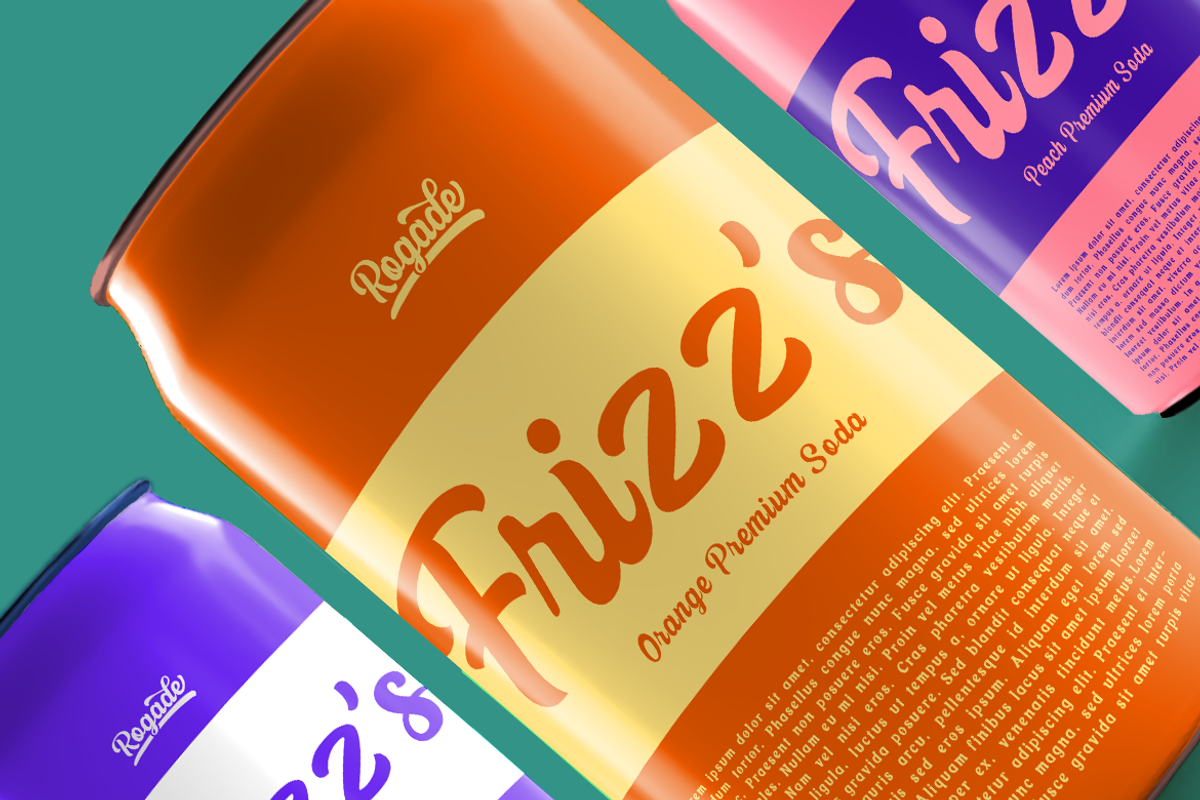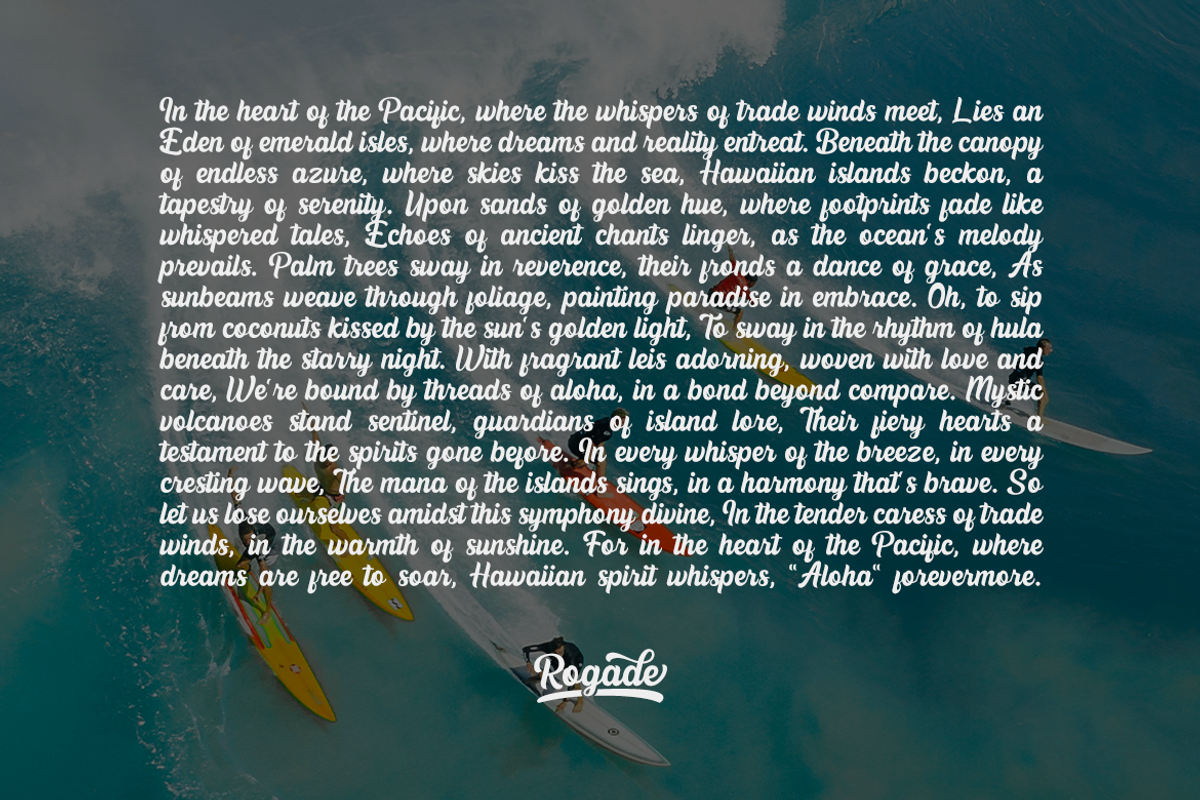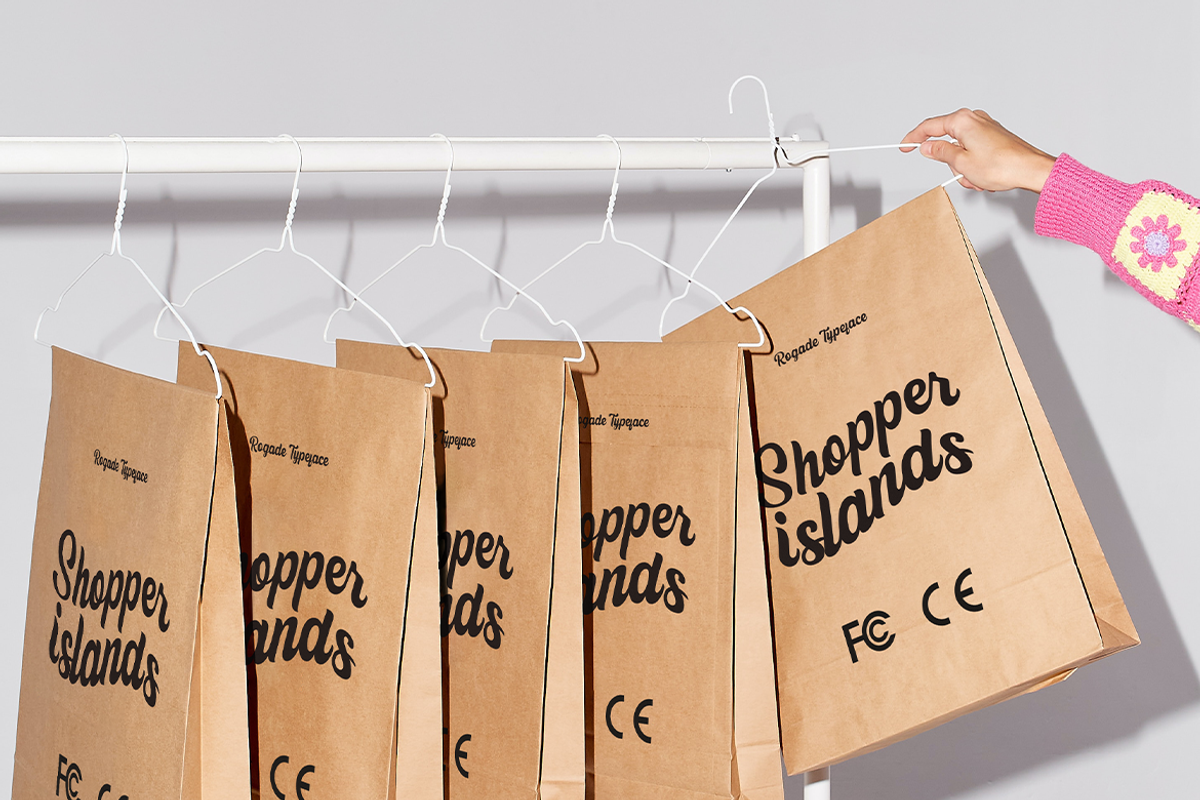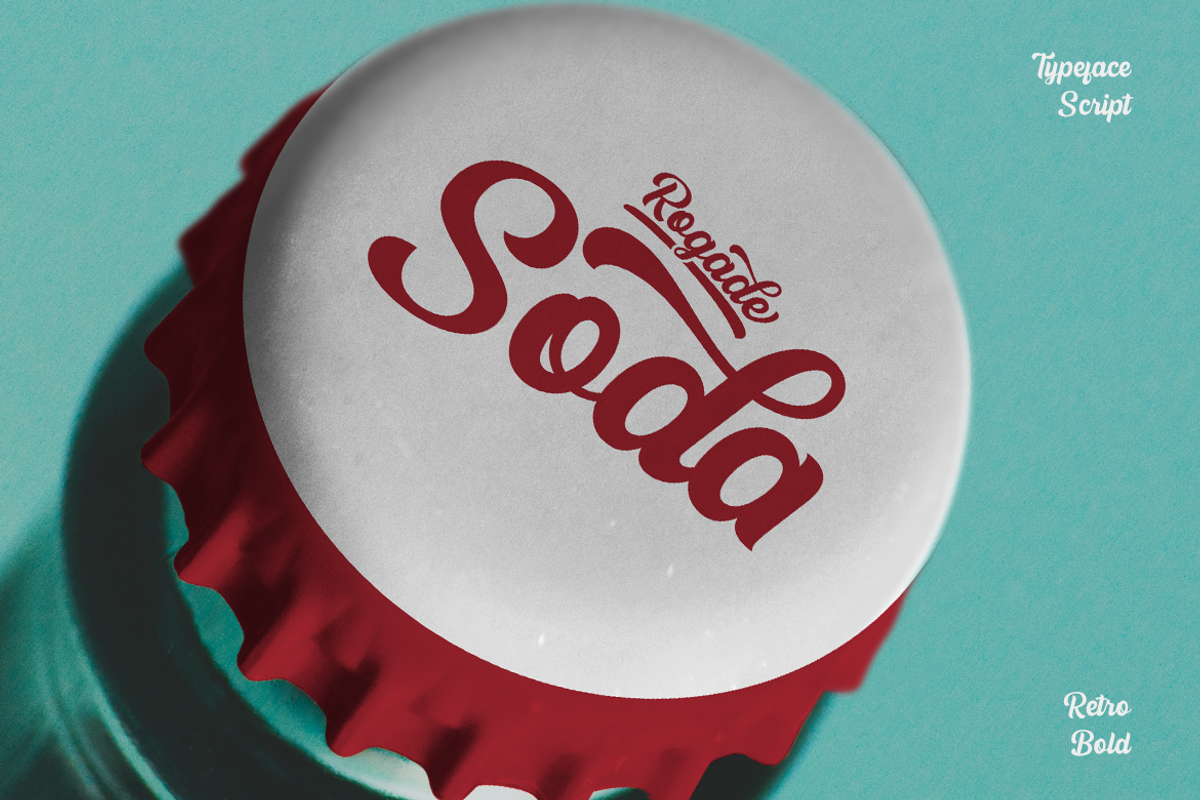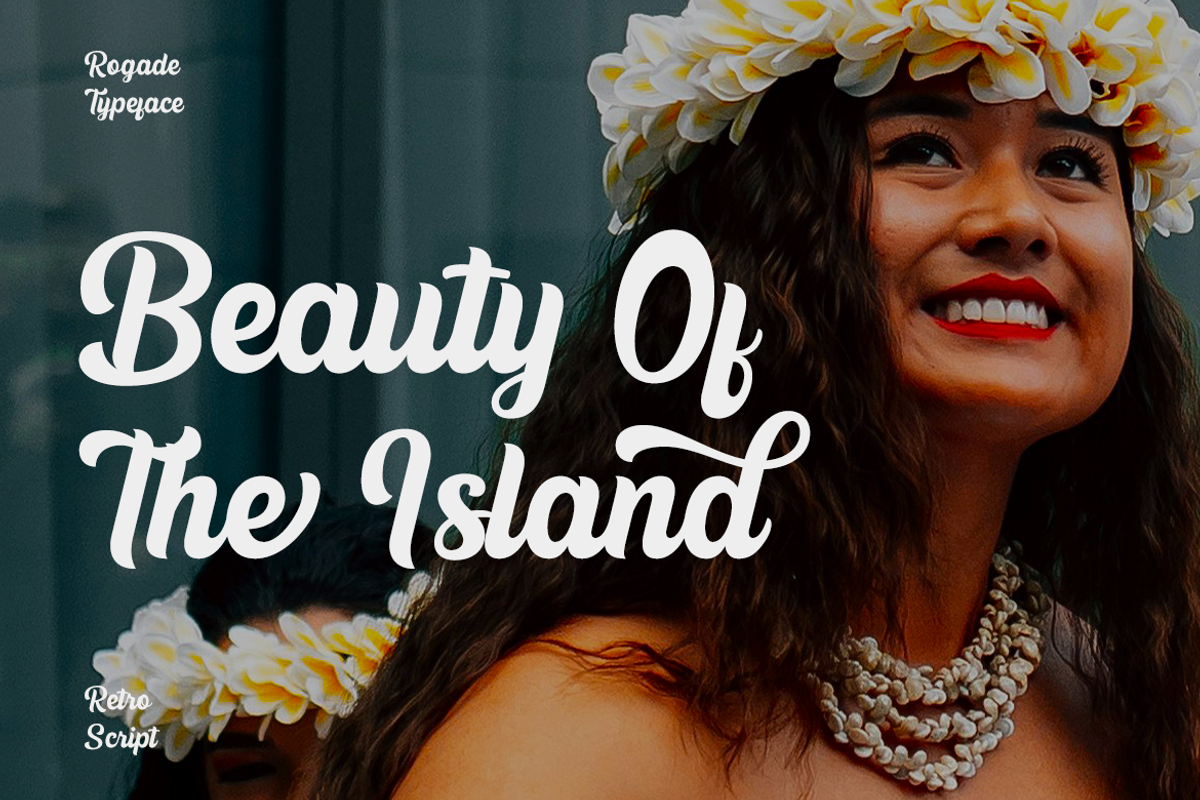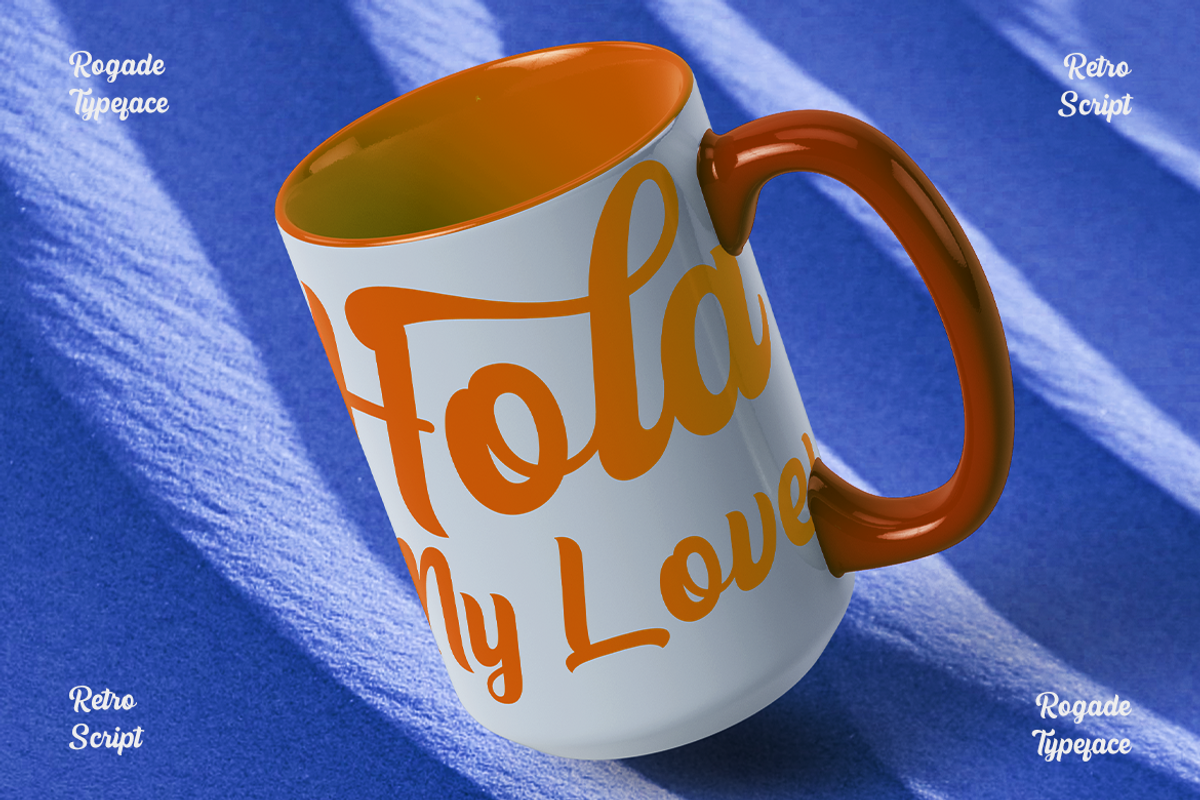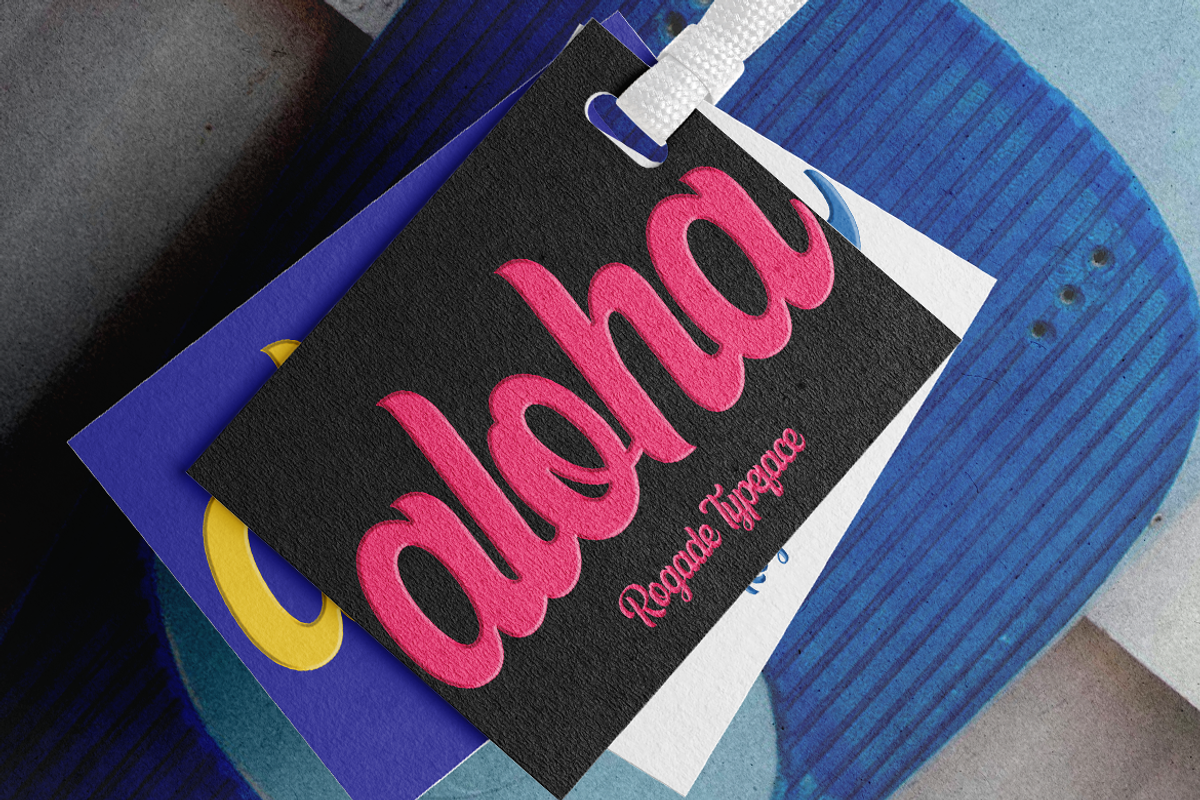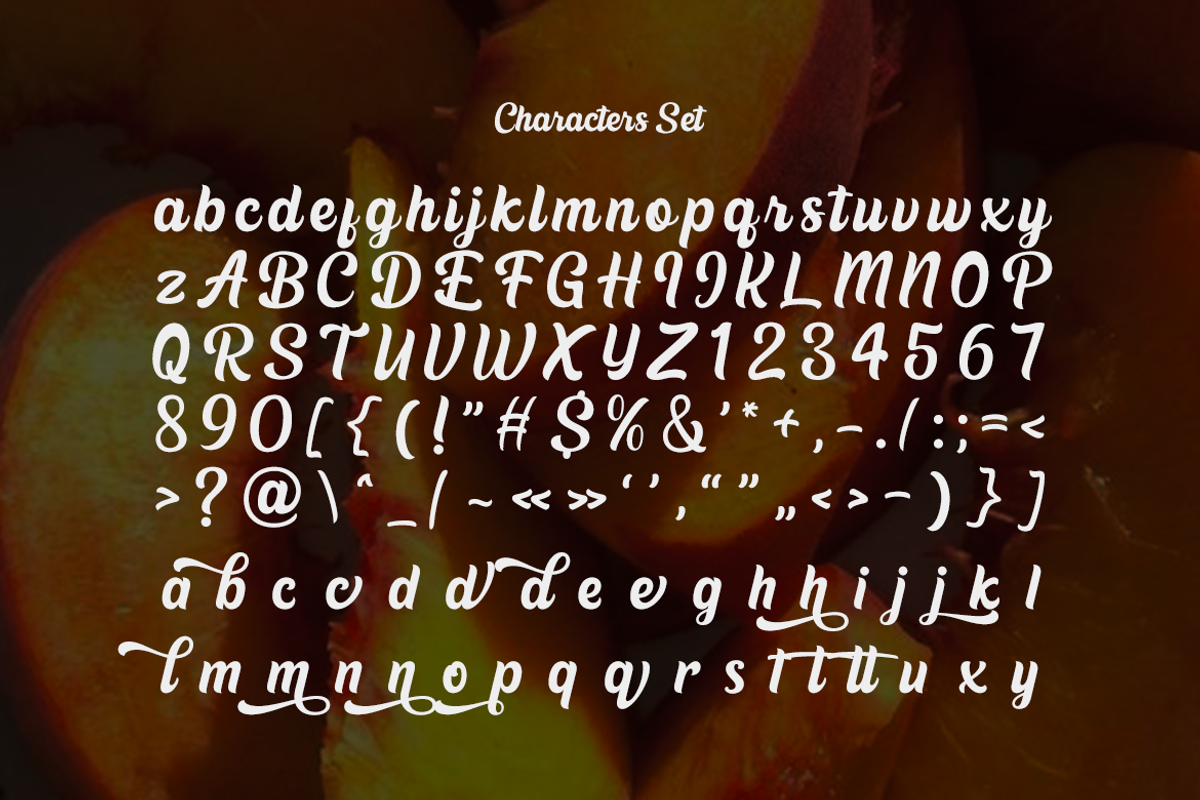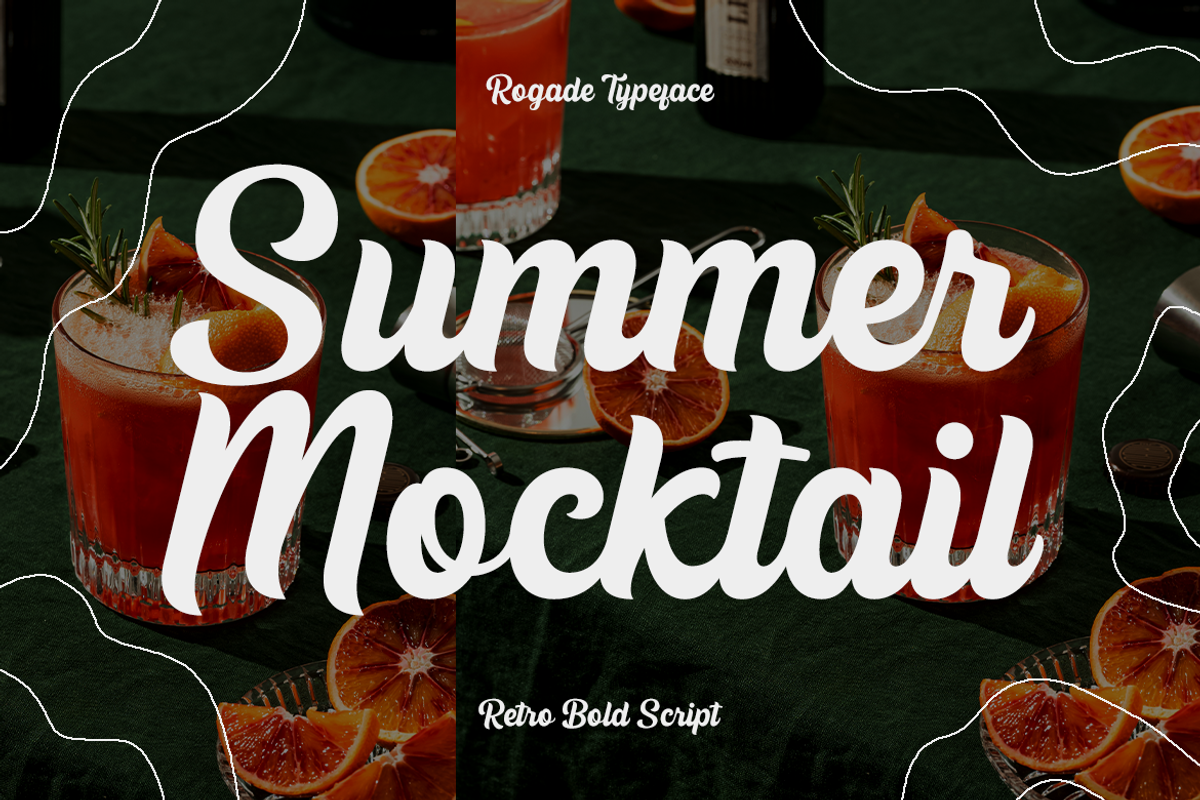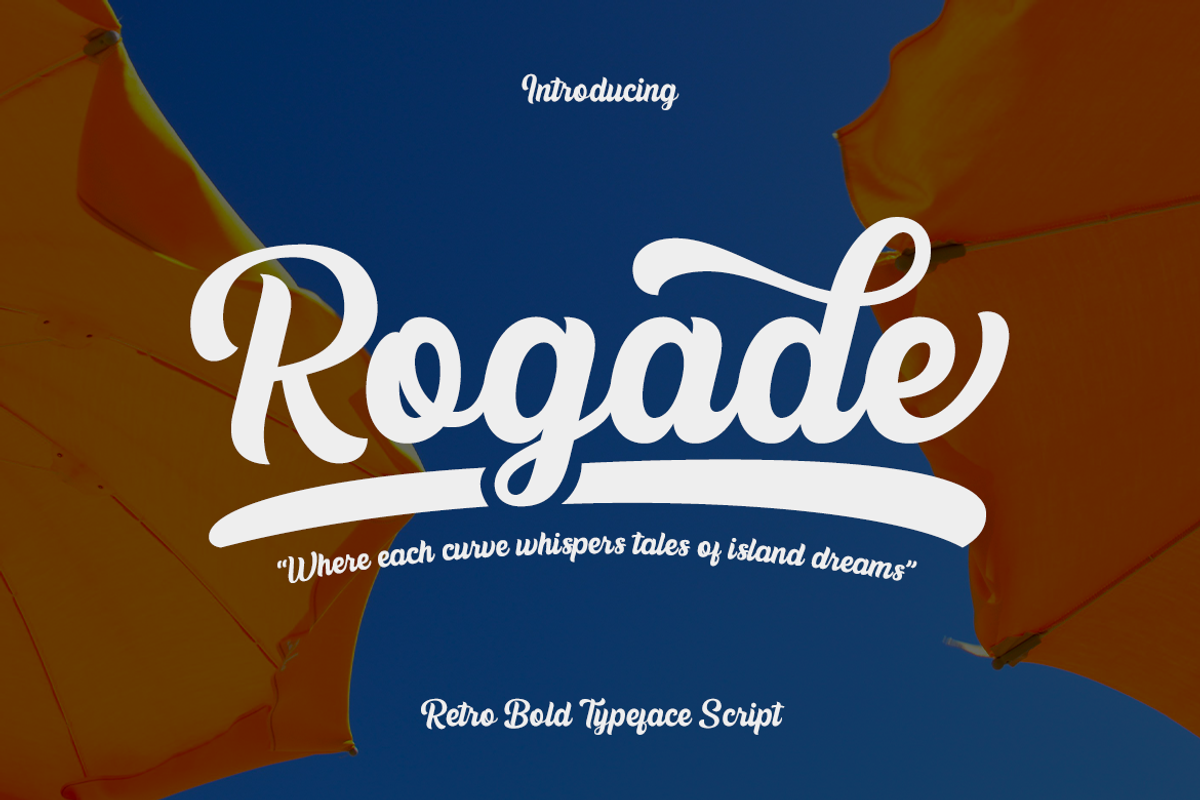
CF Rogade - Retro Groovy Script
Rogade- is a typeface that injects a dose of nostalgic fun into your designs. Inspired by the groovy lettering of the retro era, Rogade boasts a bold script style with a playful and funky personality. This Typeface is a perfect for eye-catching headlines and logo, groovy posters and packaging designs, inviting social media graphics, bringing retro flair to any creative projects, or any design purpose, you named it!
- Standard Character A-Z, a-z, 0-9, Punctuation & symbols
- Alternate and Ligature